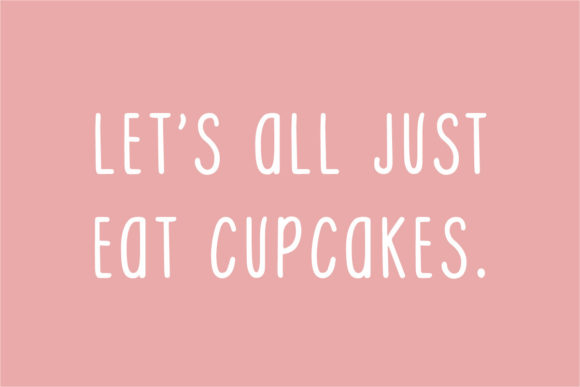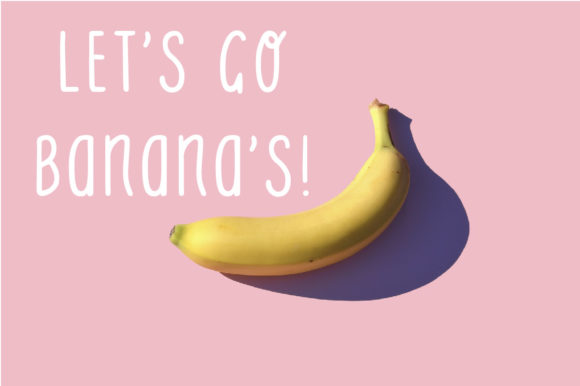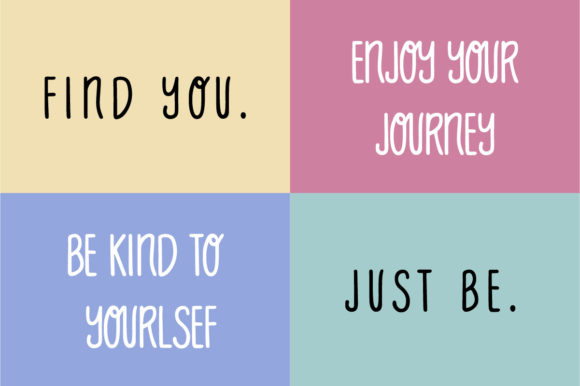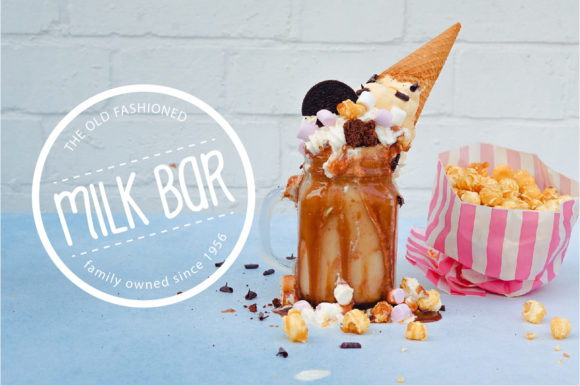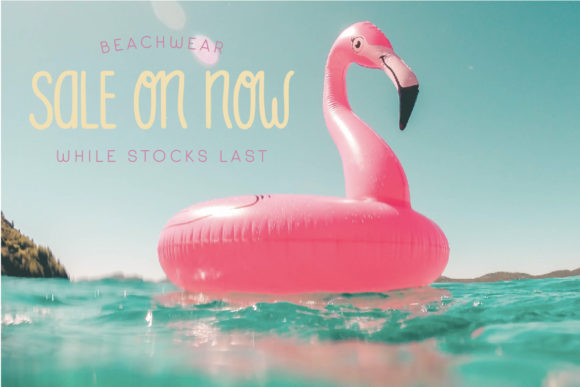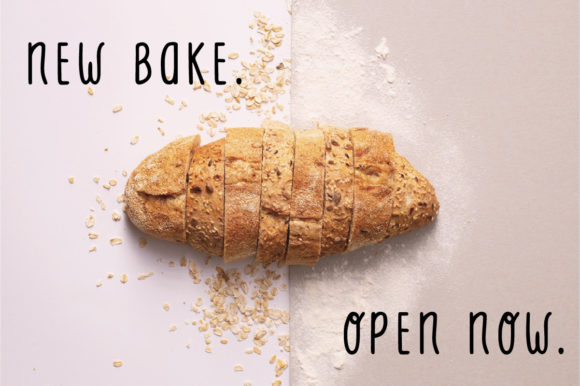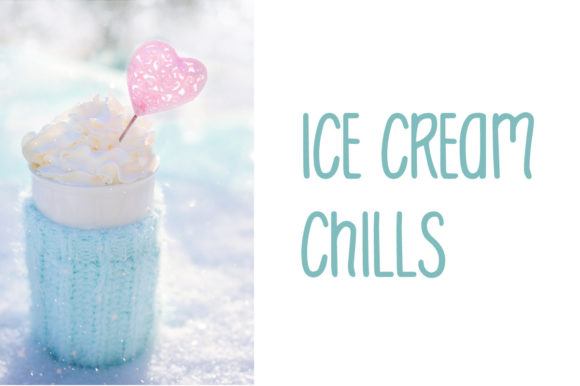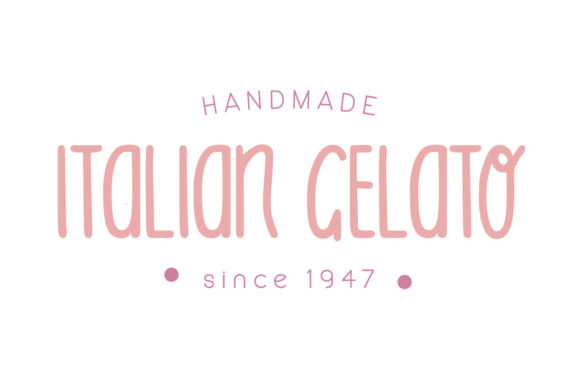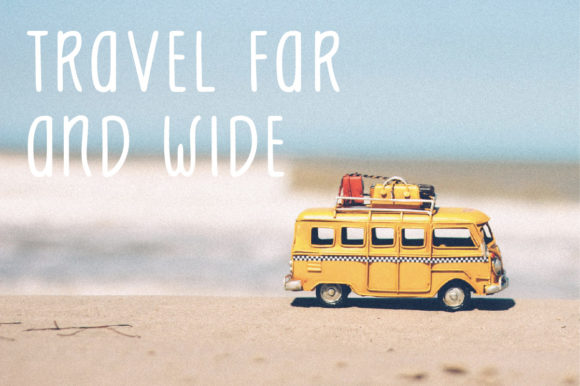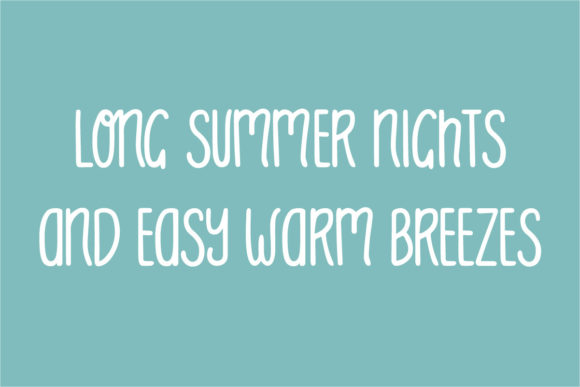
Cornerstore Font
About Cornerstore Font
Cornerstore is a cute, fun and friendly handwritten font, that can be used for all chalkboard quotes or teaching material! This font is perfect for children themed designs, especially when combined with bright colors.